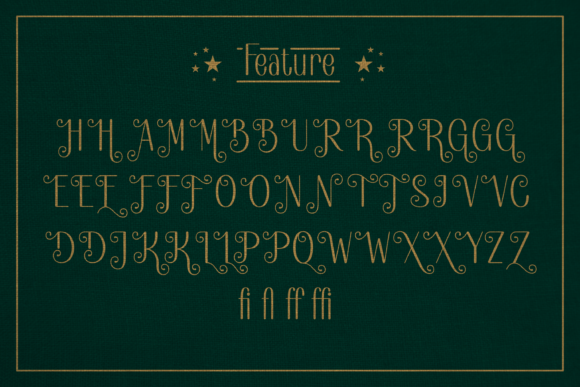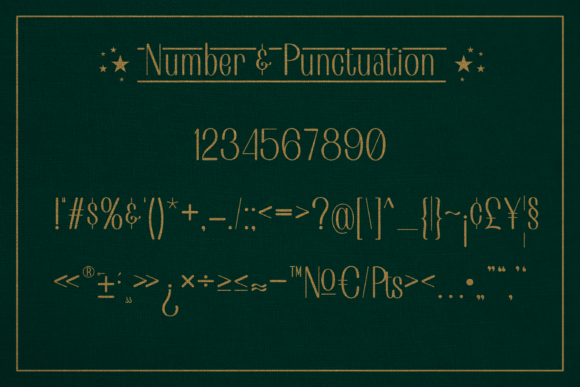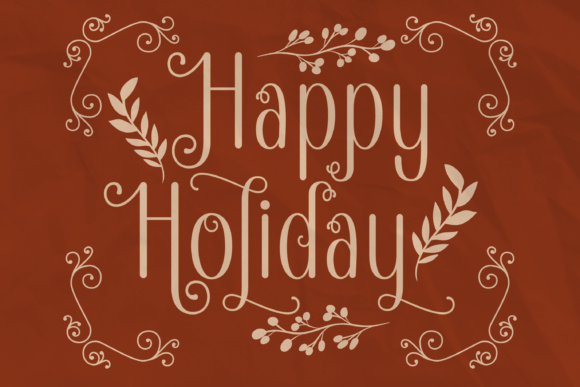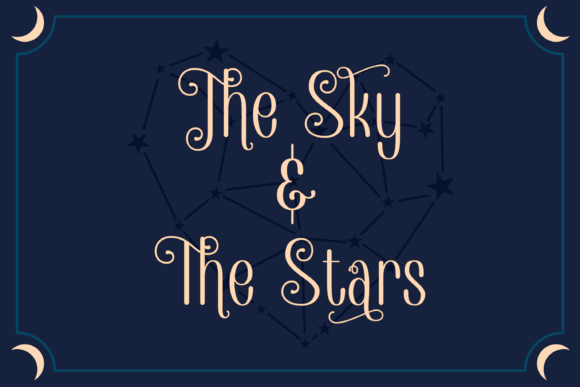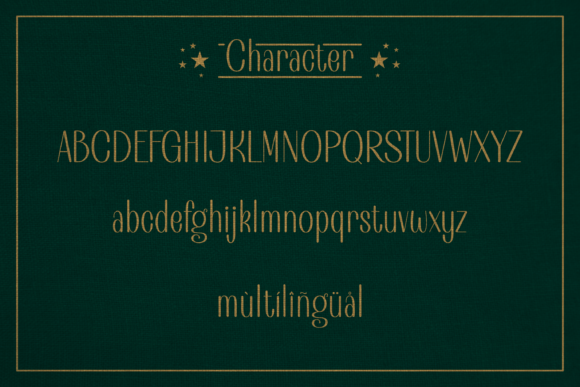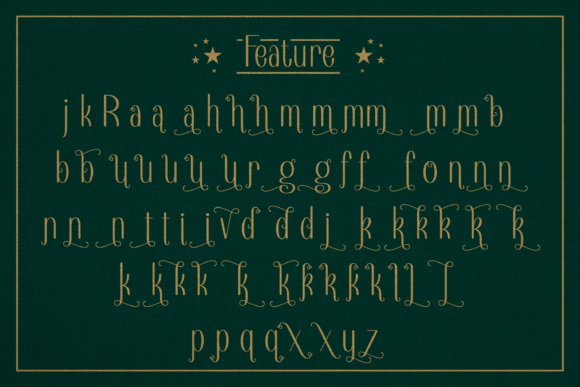
Introducing Agatha Font: The Magical Handwritten Display Font
Are you looking for a font that combines classy calligraphic influences with a contemporary and fresh feel? Look no further than Agatha Font, a beautifully designed handwritten display font that’s sure to become a true favorite among designers and crafters. With its casual yet elegant touch, Agatha Font is perfect for a wide range of projects, from wedding invitations and branding materials to social media graphics and more.
The Design Behind Agatha Font
Agatha Font is a masterfully designed font that boasts a unique blend of traditional calligraphy and modern sensibilities. Its creator has carefully crafted each letterform to exude a sense of elegance and sophistication, while still feeling approachable and friendly. The result is a font that’s perfect for designers and crafters who want to add a touch of whimsy and personality to their work.
Key Features of Agatha Font
- PUA Encoding: Agatha Font is PUA encoded, which means you can access all of the glyphs and ligatures with ease. This makes it simple to use and customize the font to suit your needs.
- Handwritten Display Font: Agatha Font is a handwritten display font, perfect for use in headlines, titles, and other display text.
- Classy Calligraphic Influences: The font maintains its classy calligraphic influences, giving it a sophisticated and elegant feel.
- Contemporary and Fresh: Despite its traditional roots, Agatha Font feels contemporary and fresh, making it perfect for modern designs.
- Casual yet Elegant: The font has a casual yet elegant touch, making it suitable for a wide range of projects and applications.
Why Choose Agatha Font?
So why choose Agatha Font for your next project? Here are just a few reasons why this font stands out from the crowd:
- Unique and Eye-Catching: Agatha Font is a unique and eye-catching font that’s sure to grab attention and make your designs stand out.
- Versatile: The font is versatile and can be used in a wide range of projects, from wedding invitations and branding materials to social media graphics and more.
- Easy to Use: Agatha Font is easy to use and customize, thanks to its PUA encoding and intuitive design.
- High-Quality: The font is high-quality and carefully crafted to ensure that it looks great in any application.
Using Agatha Font in Your Designs
Agatha Font is perfect for a wide range of design applications, including:
- Wedding Invitations: Use Agatha Font to create beautiful and elegant wedding invitations that set the tone for a special day.
- Branding Materials: The font is perfect for use in branding materials, such as logos, business cards, and letterheads.
- Social Media Graphics: Agatha Font is great for use in social media graphics, such as Facebook posts, Instagram stories, and more.
- Signage and Displays: The font is also suitable for use in signage and displays, such as store signs, banners, and more.
| Font Name | Agatha Font |
In conclusion, Agatha Font is a magical handwritten display font that’s sure to become a true favorite among designers and crafters. With its classy calligraphic influences, contemporary and fresh feel, and casual yet elegant touch, Agatha Font is perfect for a wide range of projects and applications. Whether you’re looking to create beautiful wedding invitations, branding materials, social media graphics, or more, Agatha Font is a great choice. So why wait? Fall in love with Agatha Font and bring your projects to the highest levels!